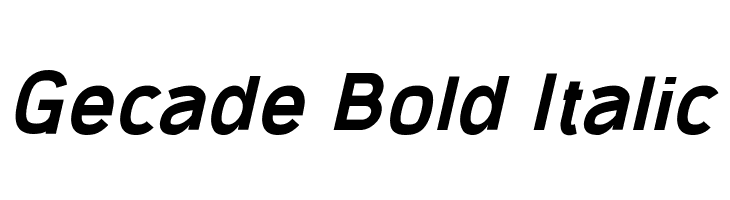
A dynamic, oblique font with bold, condensed characters and a modern style.
( Fonts by ShyFonts )
A bold, geometric sans-serif font with a modern, sporty aesthetic.
( Fonts by ShyFonts )
A bold, condensed, and playful font with a comic book style.
( Fonts by ShyFonts )
A bold, playful script font with a comic book style.
( Fonts by ShyFonts )
A playful, bold, outlined font with a comic-inspired style.
( Fonts by ShyFonts )